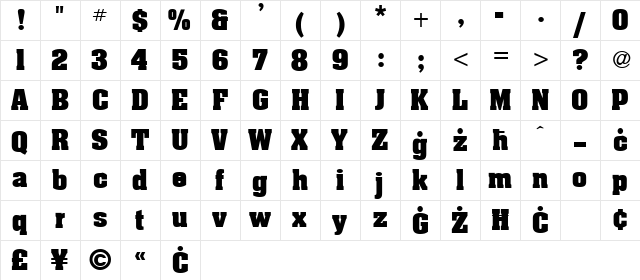
Maltaard Bold
Design Context for Maltaard Typeface
Maltaard offers clean, dependable letterforms without strong stylistic allegiance, making it a practical choice for designers who need flexibility. The heavy weight commands attention and anchors typographic hierarchies.